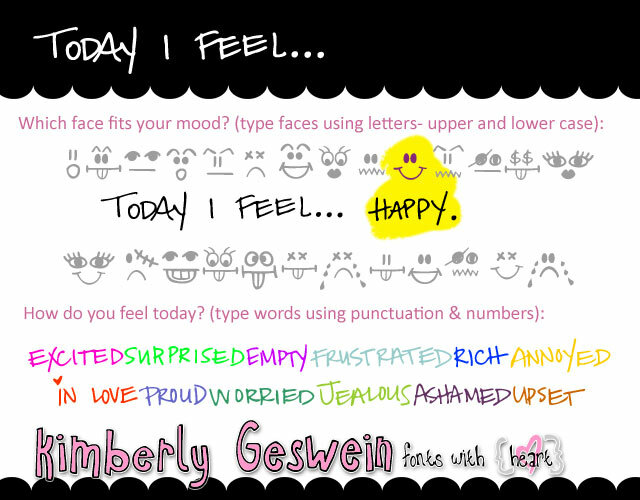
Today I Feel by Kimberly Geswein is a free cartoon dingbat font filled with expressive faces. Eyes, mouths, brows, and occasional tears are recombined into a lively, varied cast, ranging from delighted and lovestruck to worried, angry, or overwhelmed. Every face has a quick, inked simplicity.
The bold facial marks can become part of simple character illustrations or mingle with stickers and reaction icons. They make an apt resource for children's activity sheets, classroom materials, social posts, and playful merchandise. Across those settings, the shared hand-drawn expressions turn clear emotional cues into the main graphic subject rather than ordinary lettering.
Type 6 to get “Today I feel…”. All written words are typed with punctuation and numbers. All smileys are typed with uppercase and lowercase letters. The period and exclamation mark are normal.